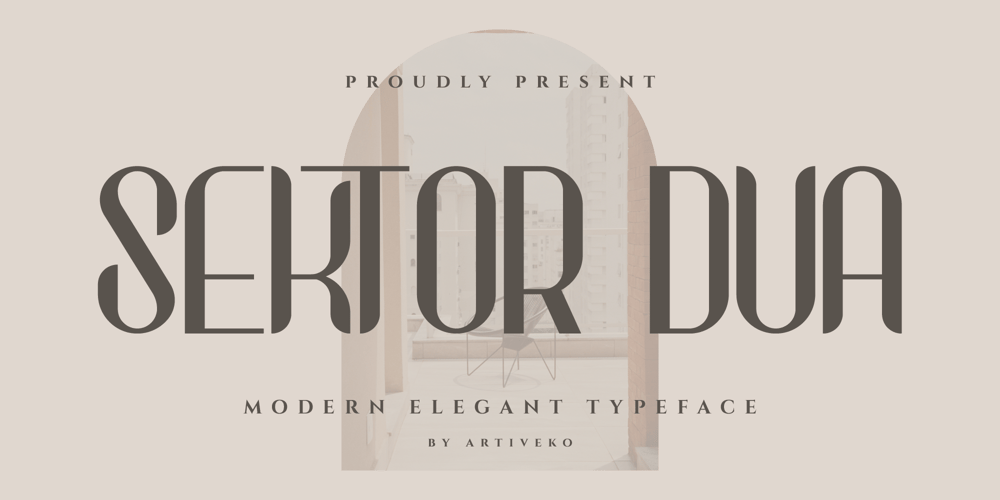
Sektor Dua Font Family was designed by Iwan Alwan and published by Artiveko. Sektor Dua contains 2 styles and family package options. Sektor Dua, a dynamic display sans serif font meticulously crafted by Iwan Alwan. With its sleek and modern design, Sektor Dua is poised to elevate your projects to new heights.This versatile typeface boasts multilingual support, ensuring seamless integration across various languages and writing systems. Its meticulously designed ligatures add a touch of sophistication to your typography, enhancing readability and visual appeal.Whether you’re designing logos, headlines, or branding materials, Sektor Dua offers a perfect balance of style and functionality. Join countless designers worldwide who trust Sektor Dua to make their creations stand out.